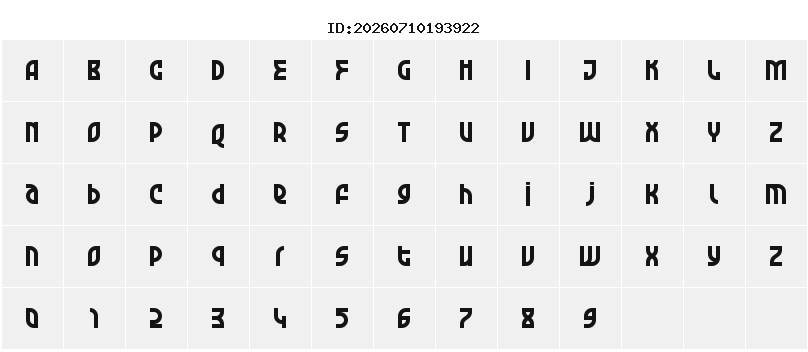
Garage Garbage Preview
• Font Name: Garage Garbage
• Full Font Name: Garage Garbage
• Version: Version 2.00 November 18, 2012, 2nd release
• Designer: architaraz
• Description: “Garage Garbage” was built with FontStruct
About Garage Garbage.ttf
Garage Garbage.ttf is a modern, elegant sans-serif font designed for ultimate readability and visual harmony. Perfect for branding, headlines, web design, and print materials.